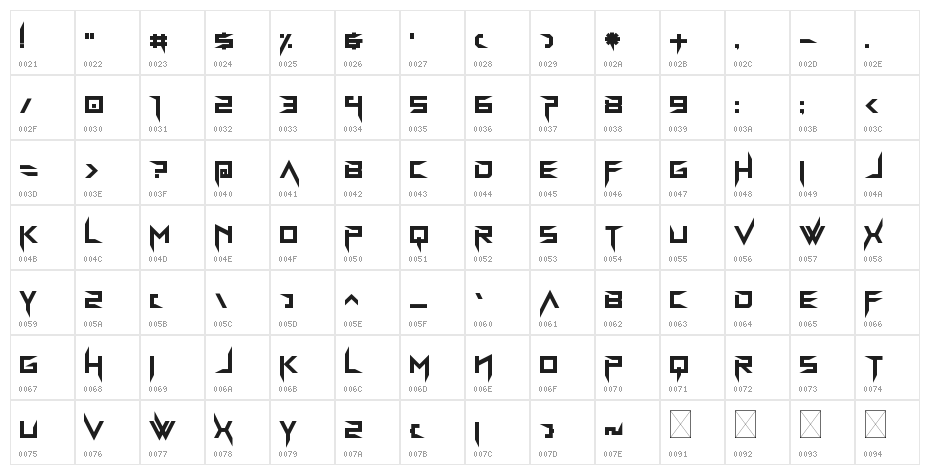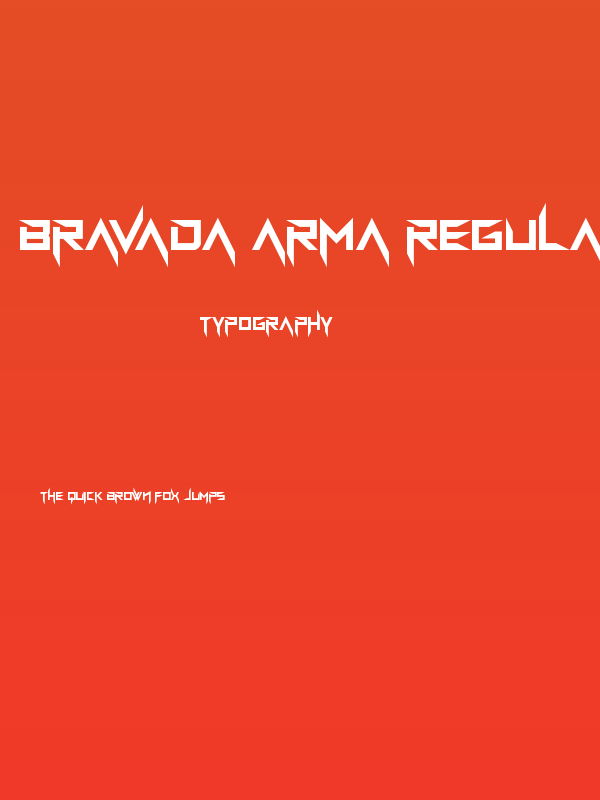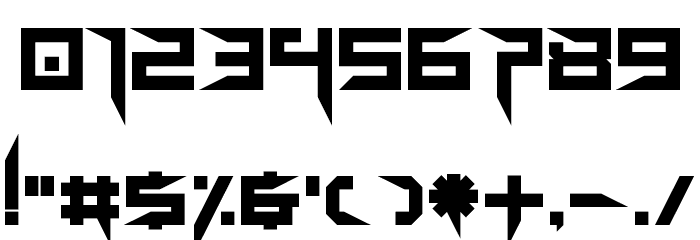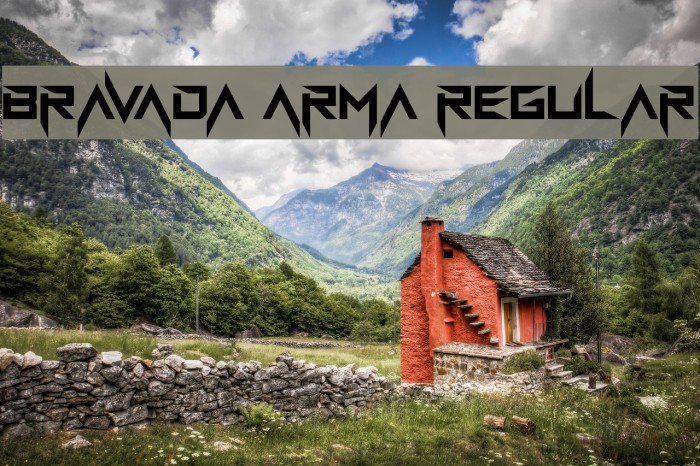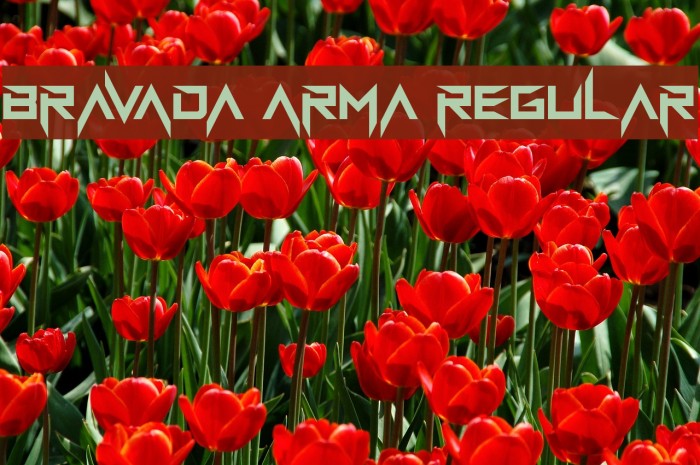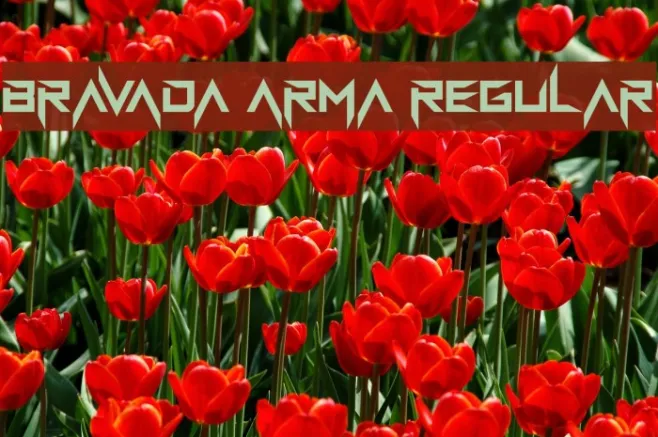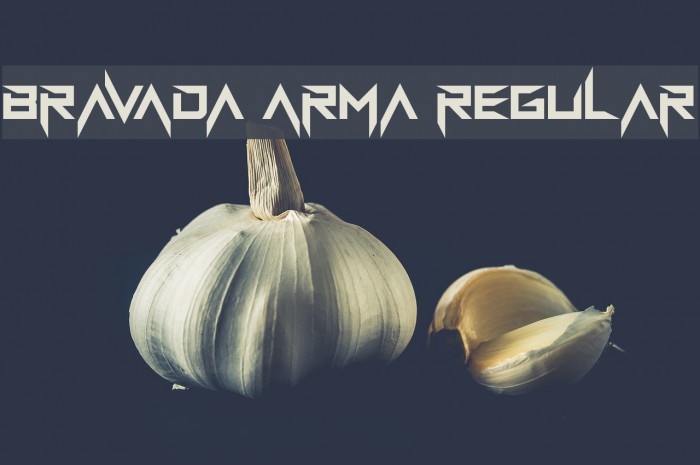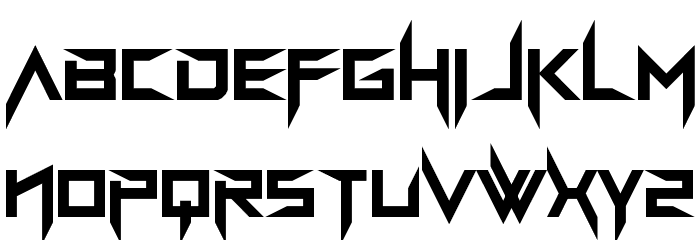
BravAda Arma Regular Font
BravAda Arma Regular Description
This font features a bold, angular design with sharp edges and a futuristic aesthetic. The characters are constructed with geometric precision, giving them a dynamic and aggressive appearance. The uppercase and lowercase letters maintain a consistent style, with each character exhibiting a unique angular cut that enhances the overall edgy look. The numbers and special characters follow the same design principles, ensuring uniformity across the font. This typeface is visually striking and commands attention, making it ideal for projects that require a modern and bold statement.
| Proposed Projects | Ideal for sci-fi themed projects, video game titles, posters, and branding that requires a modern and bold statement. |